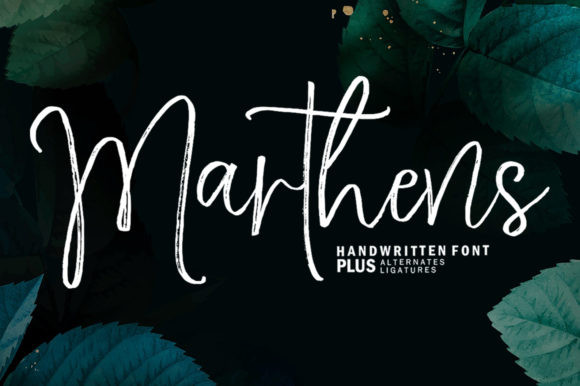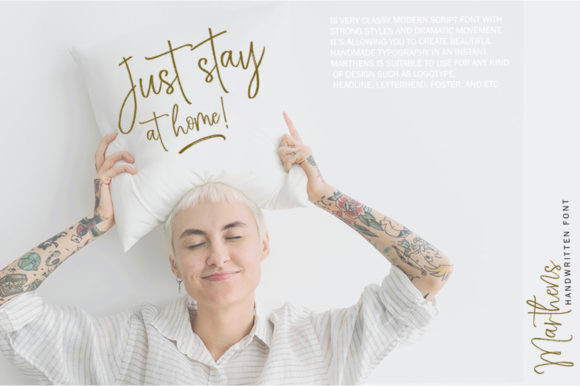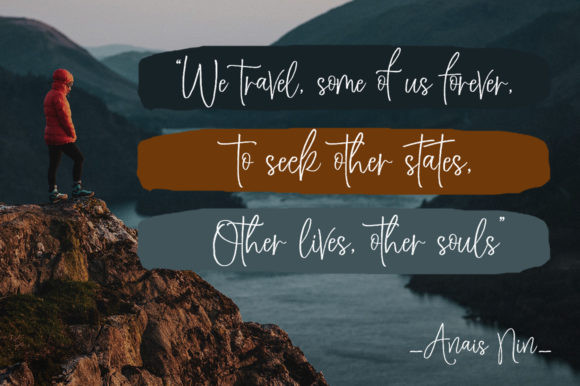
Marthens Font
Marthens is a casual, fun handwritten font, created by using a brush pen. This font will look outstanding in any context, whether it’s being used on busy backgrounds or as a standalone headline!